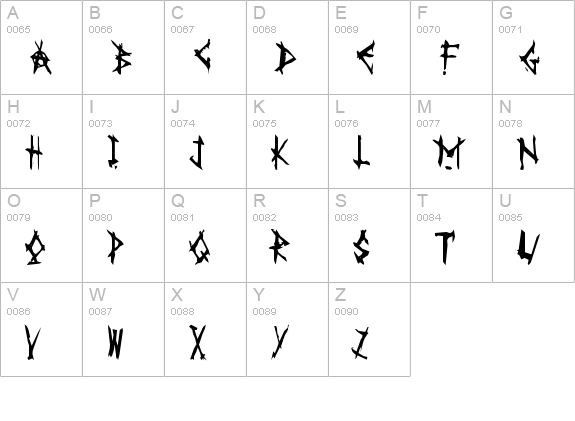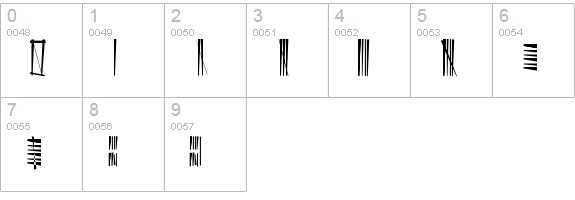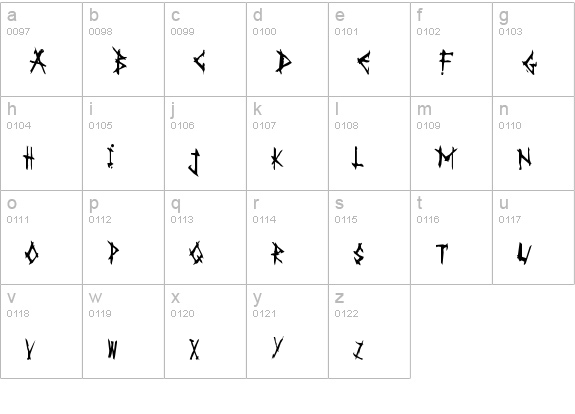
AnarK Font Details
AnarK font is a stylish and modern typeface that exudes creativity and uniqueness. With its bold and edgy design, AnarK font is perfect for making a statement in your designs. This versatile font can be used for various projects such as branding, posters, logos, and more. The best part is that AnarK font is completely free to download! You can get your hands on this fantastic font at FontsMarket.com and start using it in your projects right away. Don't miss out on this opportunity to add a touch of flair to your designs with the AnarK font - download it now and let your creativity shine!